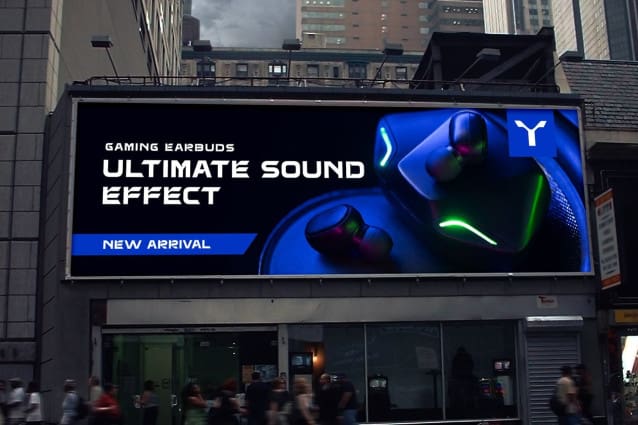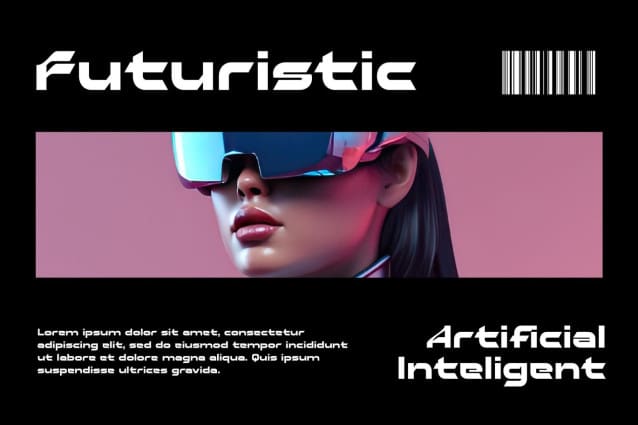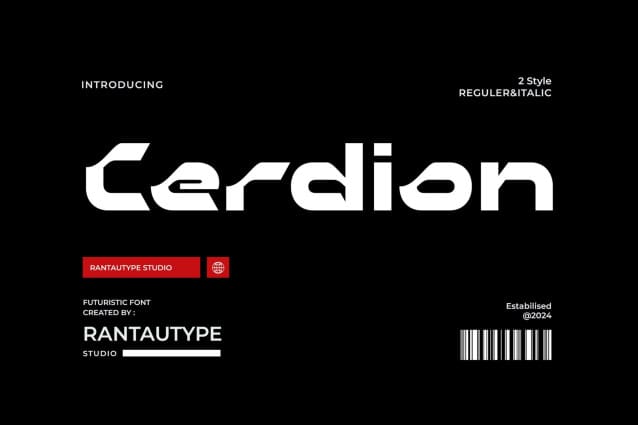
Cerdion Futuristic Font
Cerdion Futuristic Font is a futuristic font with a unique shape. It is inspired by the modern era as technology evolves rapidly. Role of the “Cerdion” will be able to help you create an attractive design project.
Cerdion Futuristic is a perfect choice for any creative, chic and lifestyle design activity such as logos, advertisements, stationery, branding project, display and magazine, invitation, corporate branding, product design, label, commercial project and many more projects with a futuristic touch.